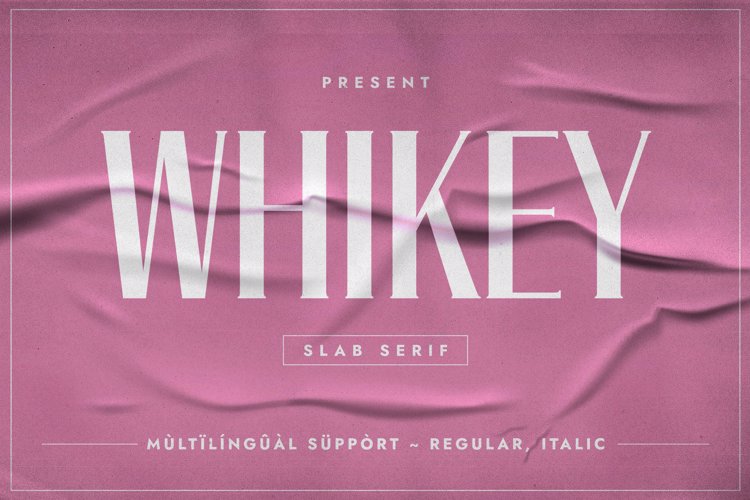
WHIKEY Font
๐จ Font Name: Whikey by Minimalist Art Studio
๐จ Font Description: Whikey is a delicate slab serif with modern elegance and multilingual supportโperfect for skincare branding, editorial layouts, and minimalist luxury packaging.
โ Complete Latin set + multilingual diacritics
โ Alternates, stylistic sets & ligatures
โ Numbers, small caps, and extended punctuation
โ Bonus italics and family styles